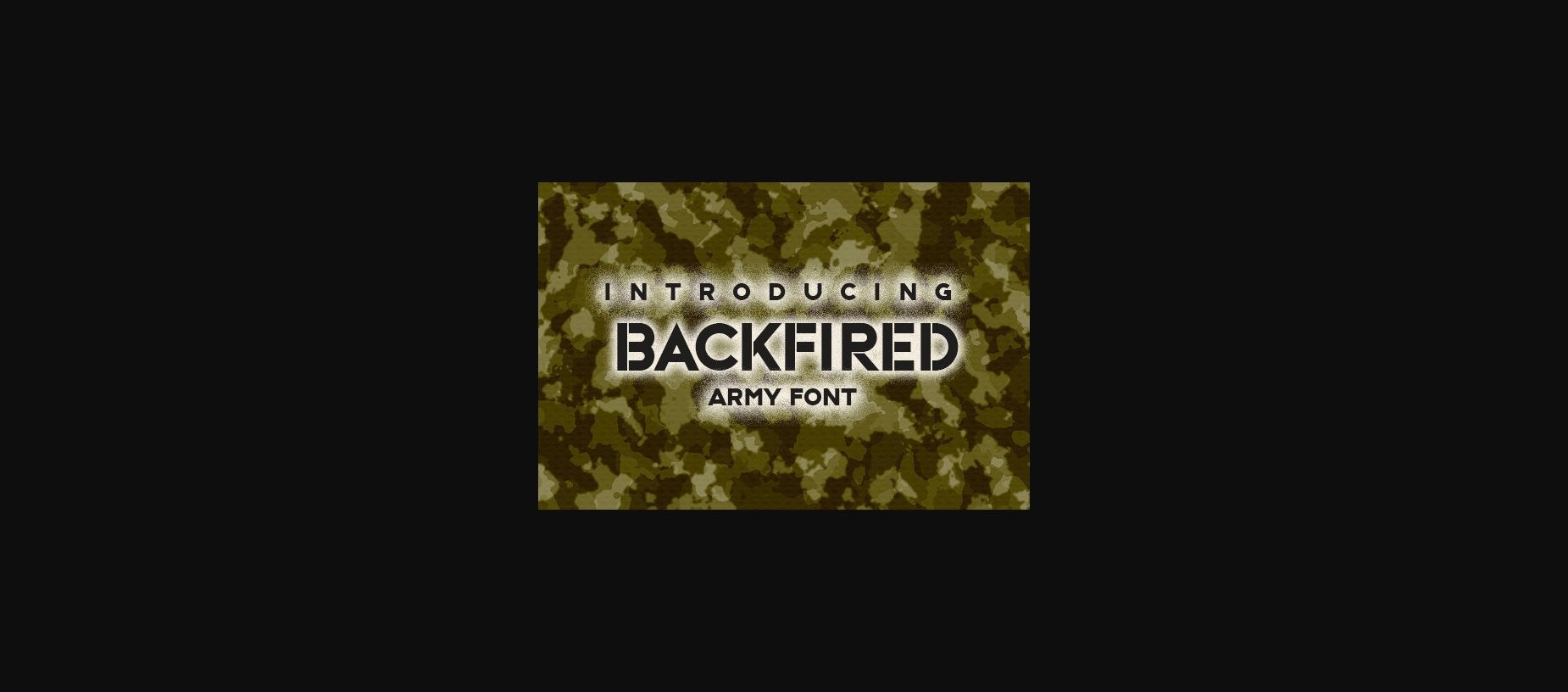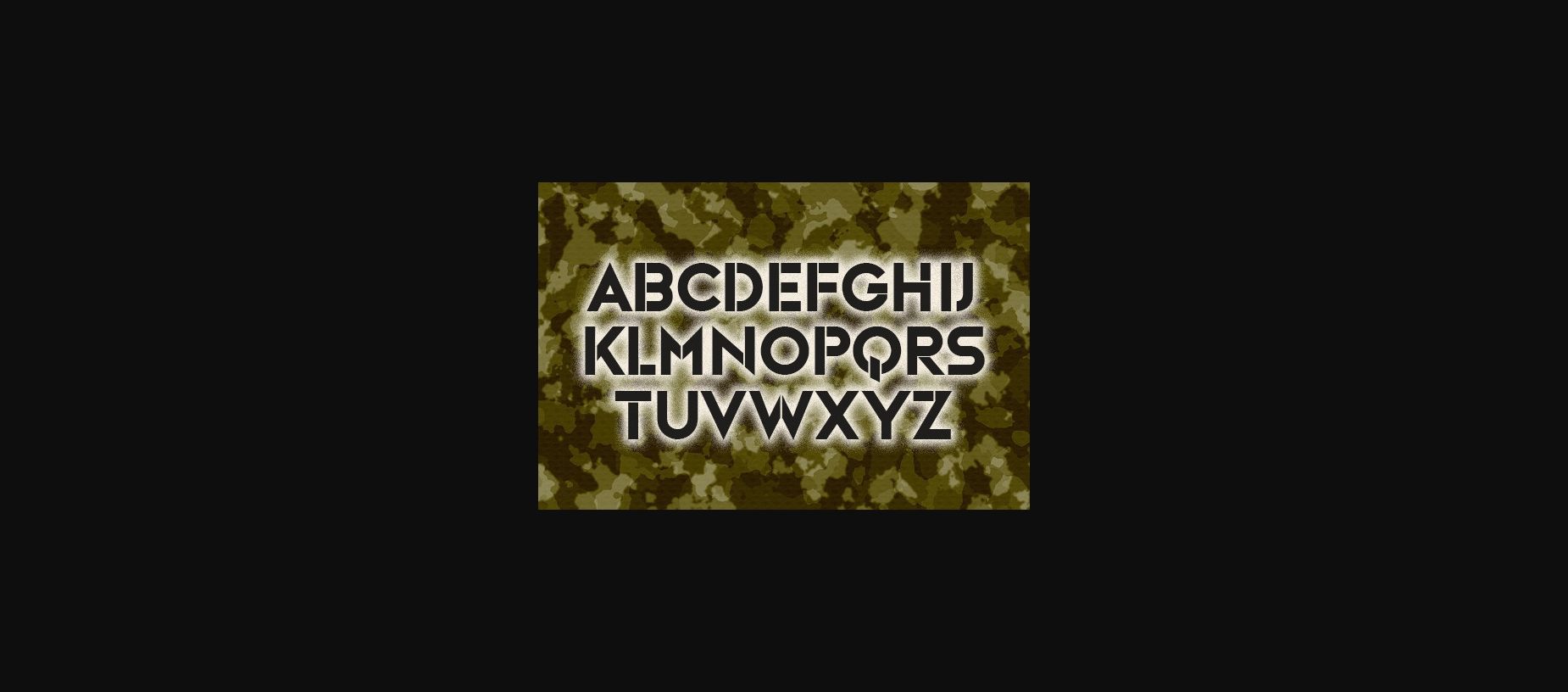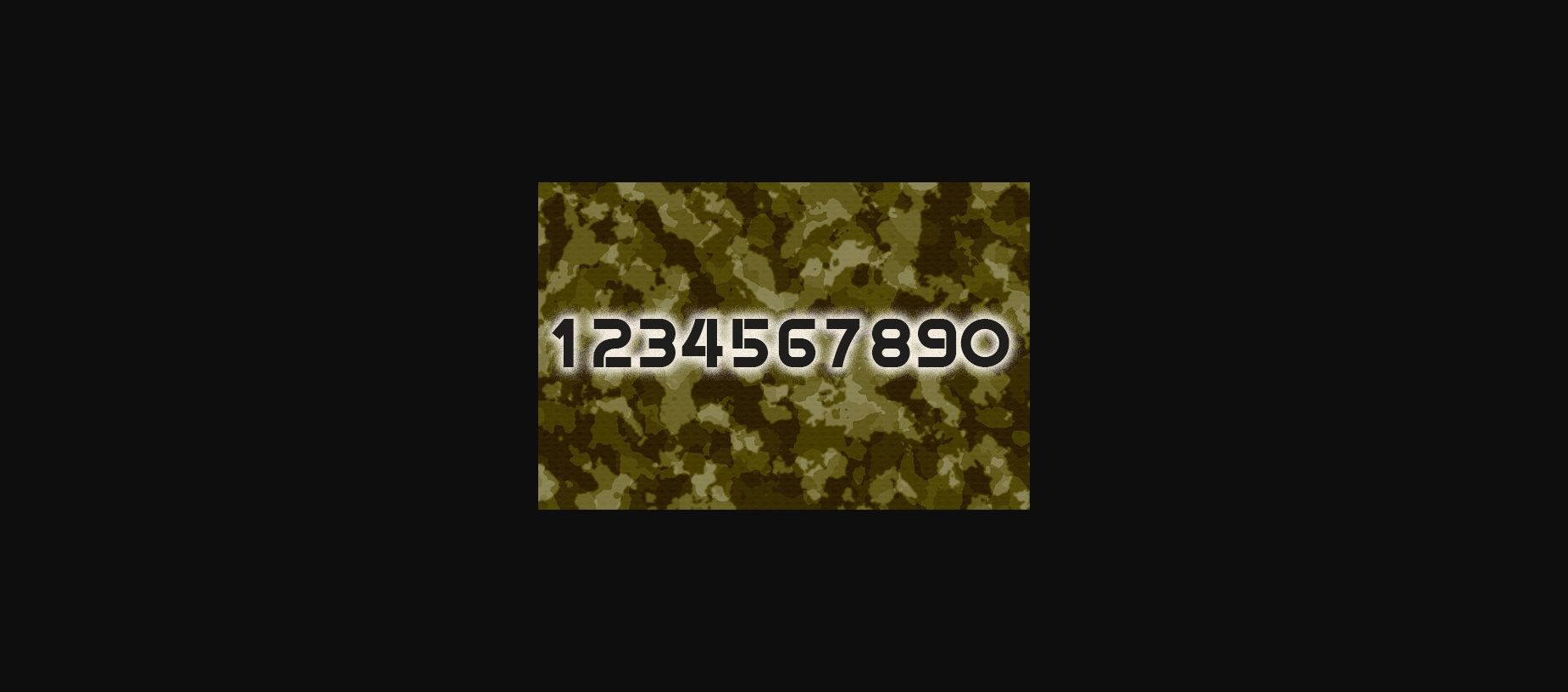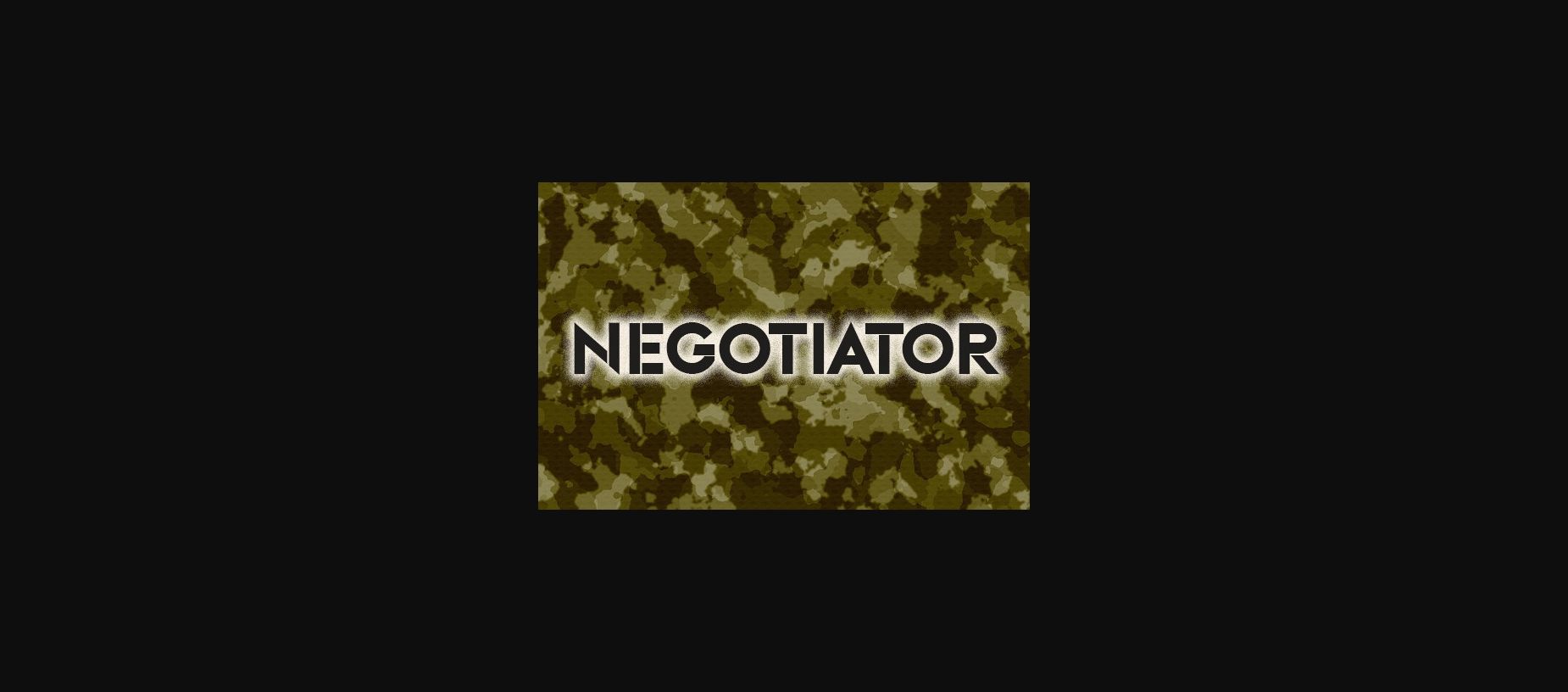
HomeSans Serif FontsBackfired Font Sans Serif Fonts Backfired Font FacebookXPinterestWhatsApp 1 of 6 ... Backfired Font Poster 2... Backfired Font Poster 3... Backfired Font Poster 4... Backfired Font Poster 5... Backfired Font Poster 6... About Backfired Font Backfired is a stylish and authentic sans serif typeface that will fit on your best projects. Use this font on posters, flyers and t-shirts. DOWNLOAD NOW People also explored Sayodies Font Lezerno Happy Anniversary Font Deffego Font Badbad Font Bloom Winter Font Pangkon Font Bonjourno Font Lavender Script 413 0 TagsBackfired Font Previous articleGhost FontNext articleChanges Font LEAVE A REPLY Cancel reply Comment: Please enter your comment! Name:* Please enter your name here Email:* You have entered an incorrect email address! Please enter your email address here Website: Save my name, email, and website in this browser for the next time I comment. Personal Use Free Eaglese Personal Use Free Read more about this font Ontel Personal Use Free Read more about this font Rina Personal Use Free Read more about this font Nesto Copper 42 Font Personal Use Free Read more about this font BLOG Transform Your Website: Elevate Your Typography with 7 Best Web Font Generators Are you ready to transform your website's typography from ordinary to extraordinary? Great! Today, we're diving into the world of web font generators, which... Best Fonts for YouTube Videos: Make Your Thumbnails Stand Out Top 10 Handwritten Fonts That Elevate Your Designs 5 Fonts That Will Dominate Design Trends in 2026